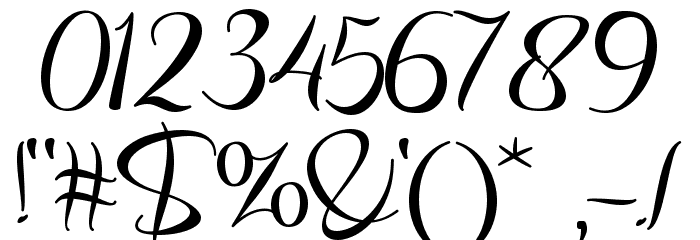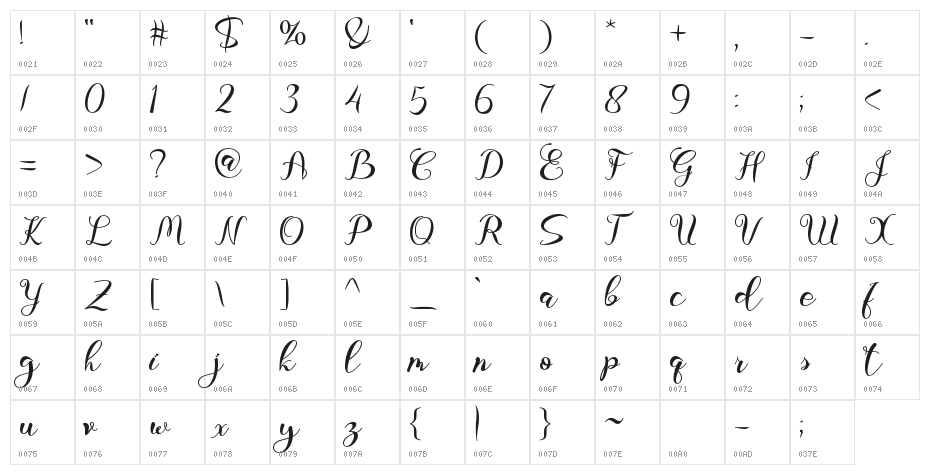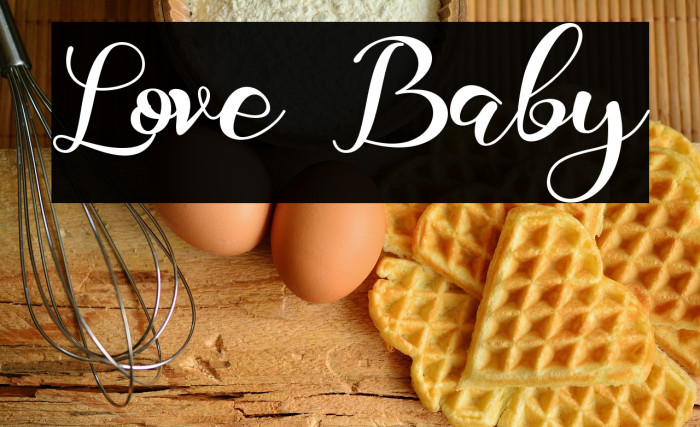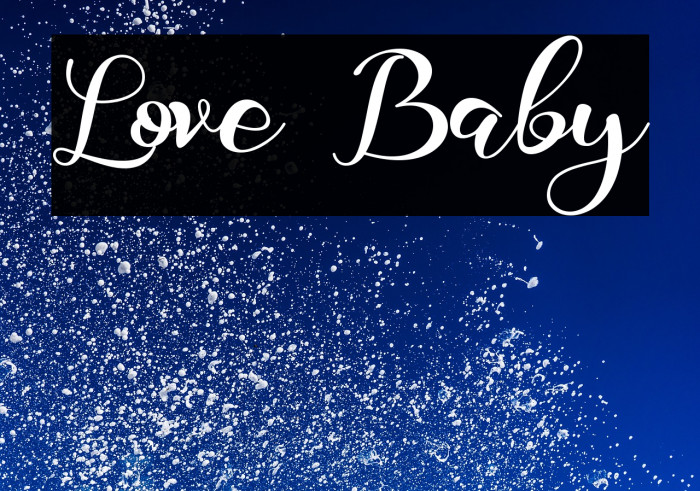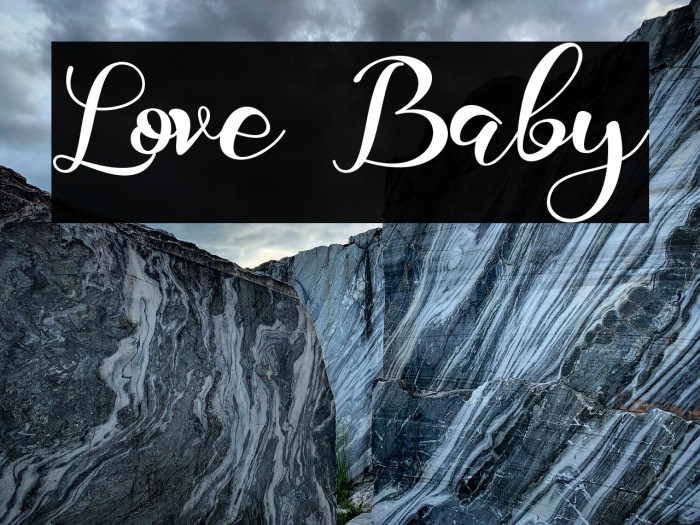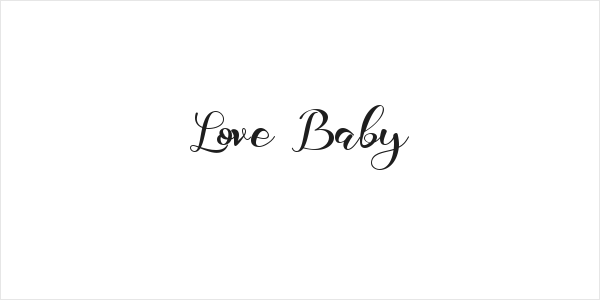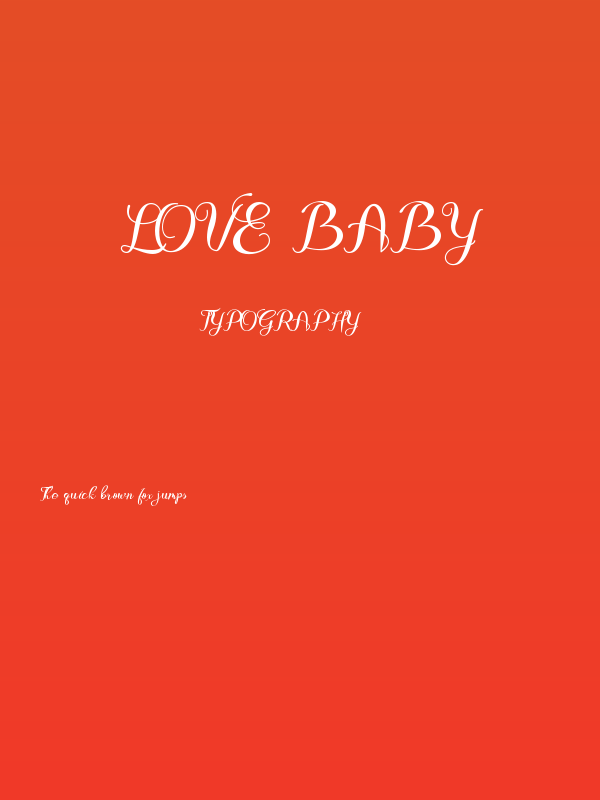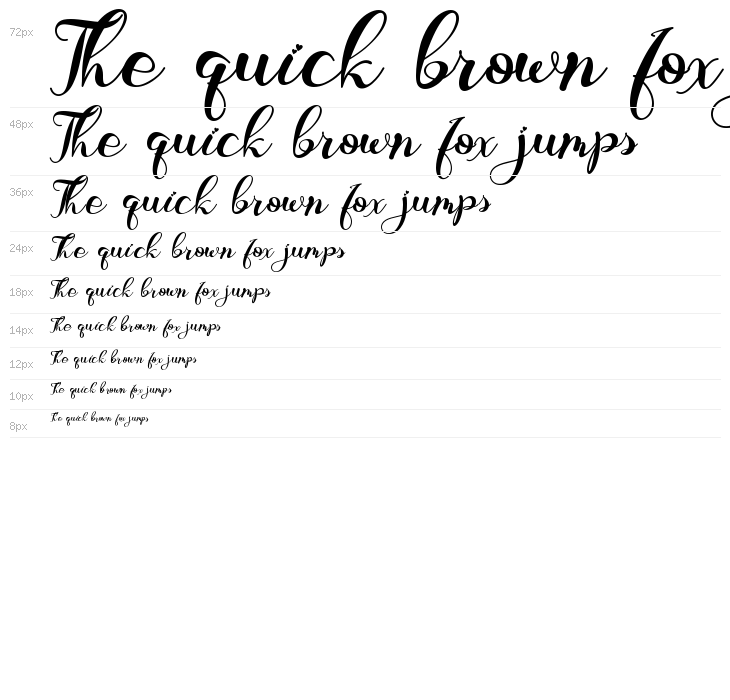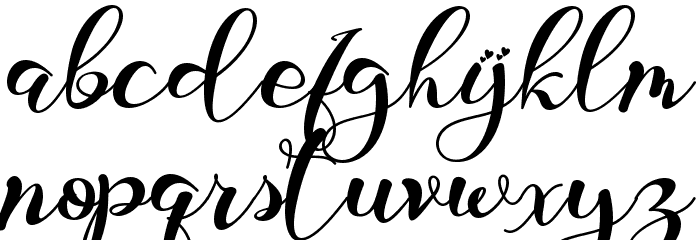
Love Baby Font
Love Baby Description
This font exudes a playful and elegant charm, characterized by its flowing script style. The letters are interconnected with smooth, curvy strokes that give it a handwritten feel. The uppercase letters are ornate, with flourishes that add a touch of sophistication, while the lowercase letters maintain a consistent rhythm and flow. The numerals and special characters are crafted with the same attention to detail, ensuring a cohesive look across all elements. This font is perfect for projects that require a personal, yet polished touch.